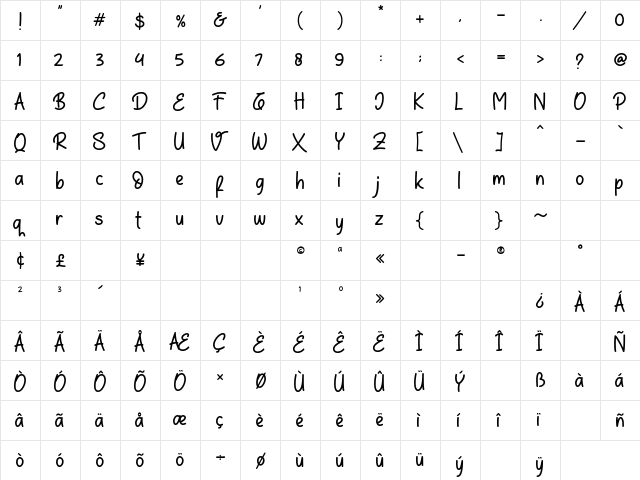
Tello Stick Regular
Design Context for Tello Stick Typeface
Tello Stick takes a measured approach to typography — its balanced proportions and neutral character make it a reliable workhorse for both digital and print work.